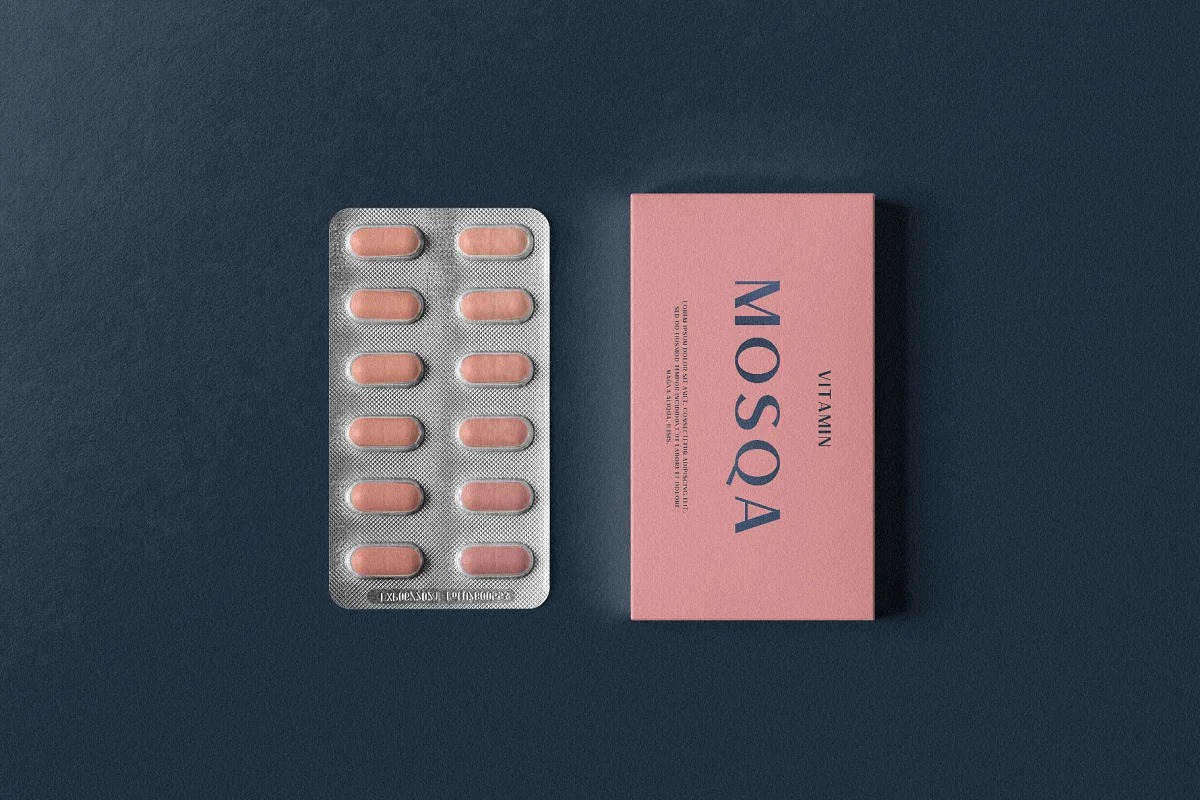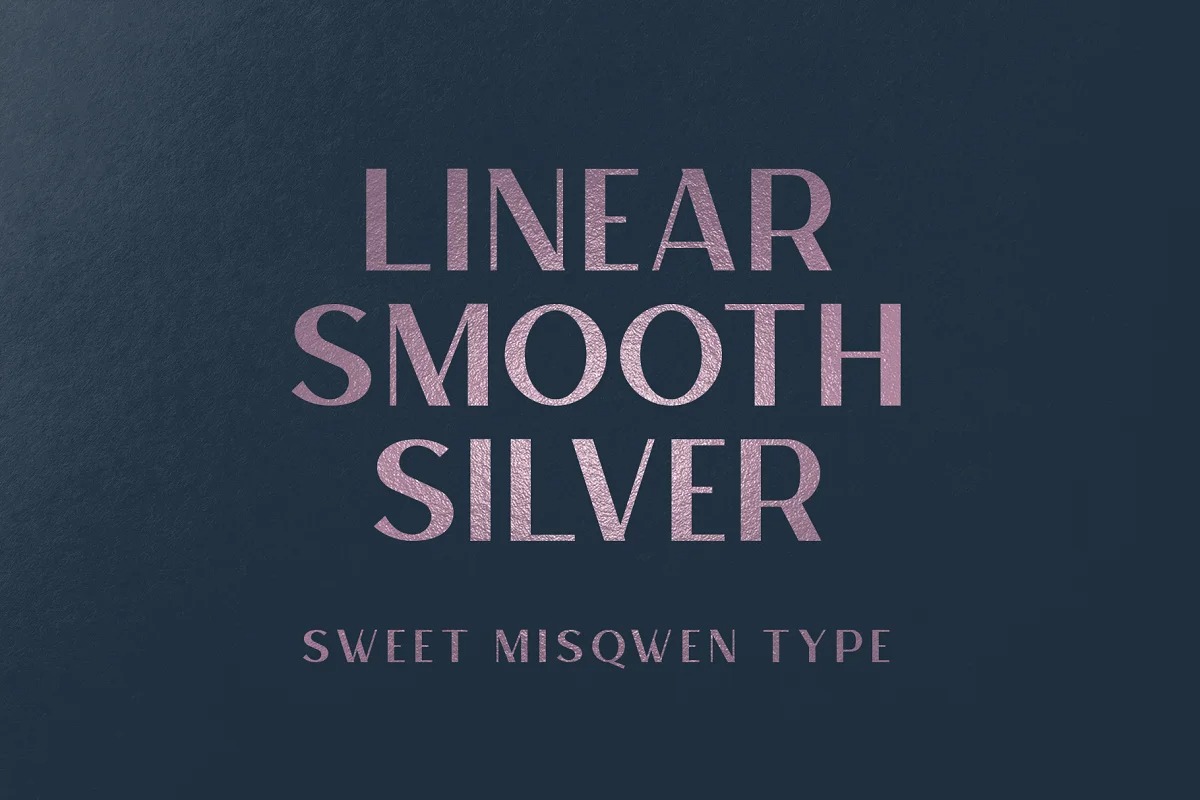
MISQWEN Font
MISQWEN Sans Serif Font
It’s a fashion chic sans serif typeface crafted & designed by OWL KING. This font was inspired by and for fashion brands in the world. Use this font for your fashion brand, resort, cosmetics, invitations, wedding, branding, packaging, magazines, boutique, social media, restaurant, spa, greeting cards, headers, headline, and many more…